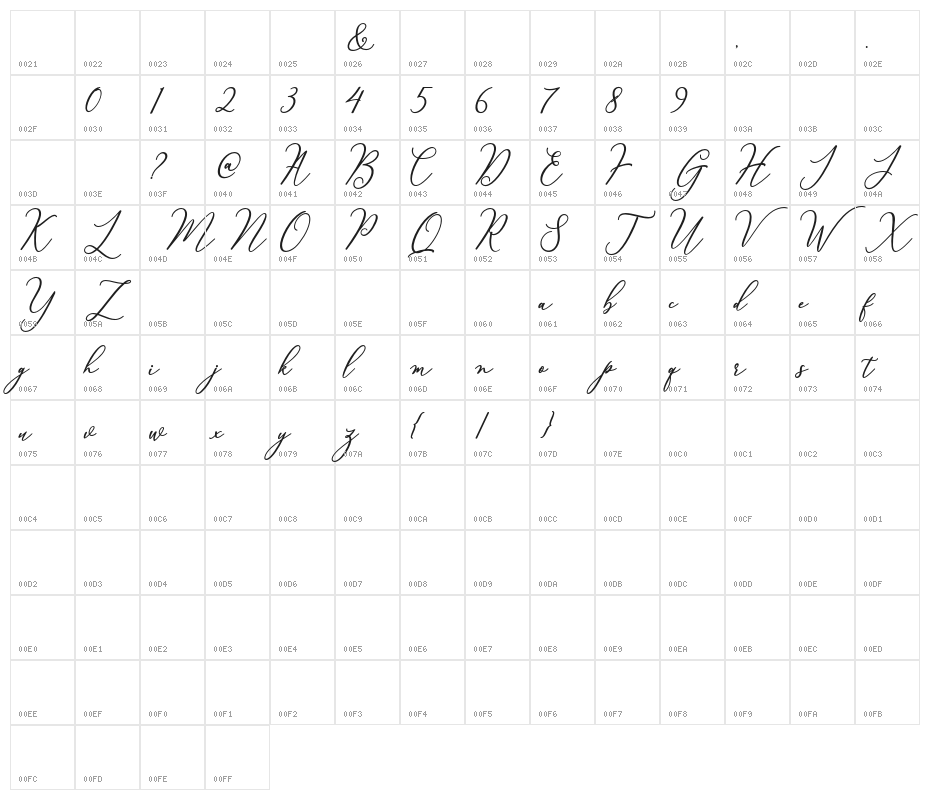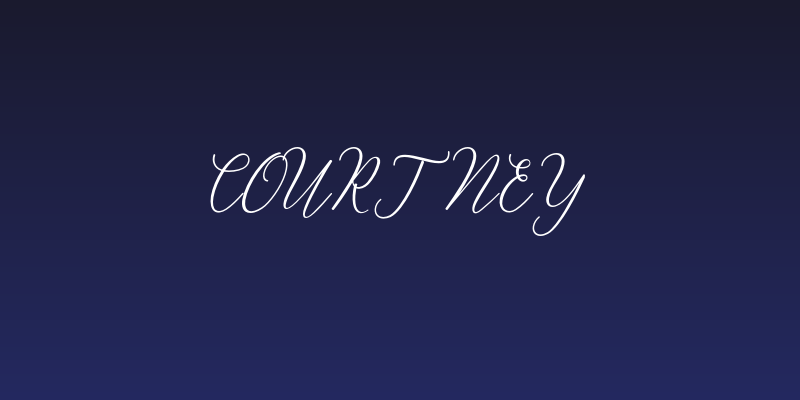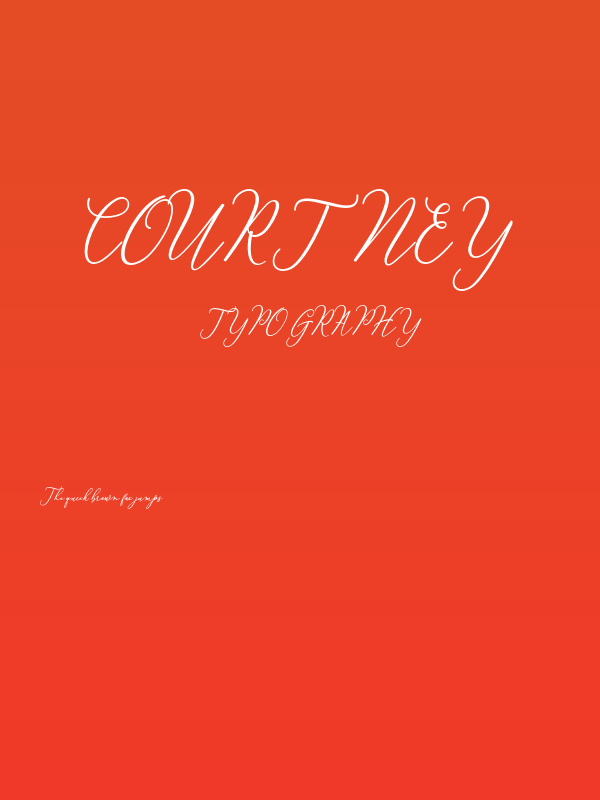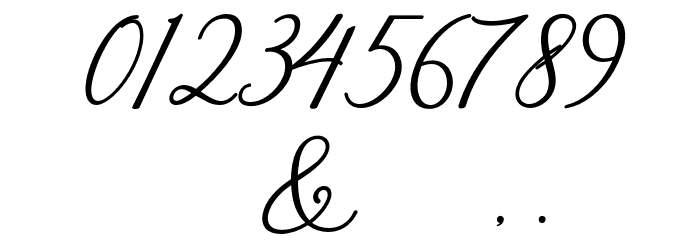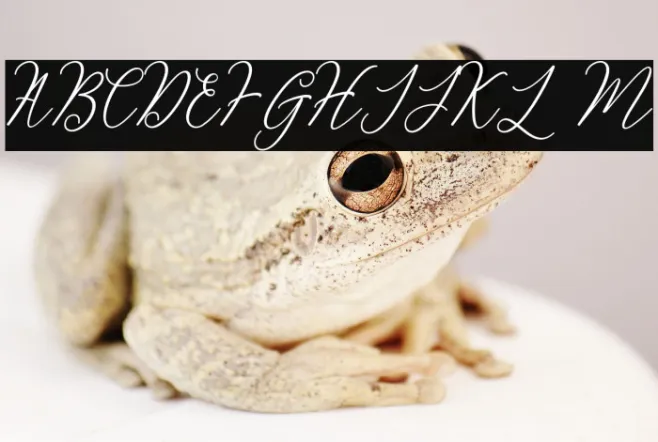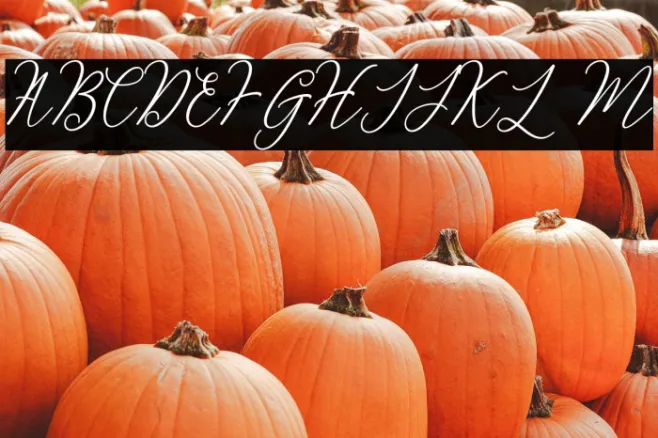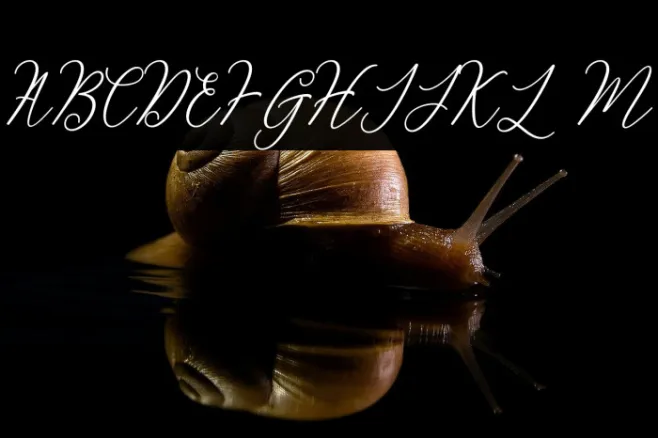
Courtney Font
Courtney Description
This elegant script font features fluid, cursive strokes that convey a sense of sophistication and grace. The uppercase letters are tall and slender, with sweeping curves and delicate loops that add a touch of refinement. The lowercase letters maintain a consistent flow, with smooth connections between each character, creating a harmonious and continuous line. The numerals are stylishly crafted, matching the overall aesthetic with their graceful curves. Special characters like the ampersand and punctuation marks are designed with the same attention to detail, enhancing the font's cohesive appearance. This font is ideal for projects that require a touch of elegance and class, such as wedding invitations, formal event programs, or high-end branding materials.
| Proposed Projects | Wedding invitations, formal event programs, high-end branding materials. |